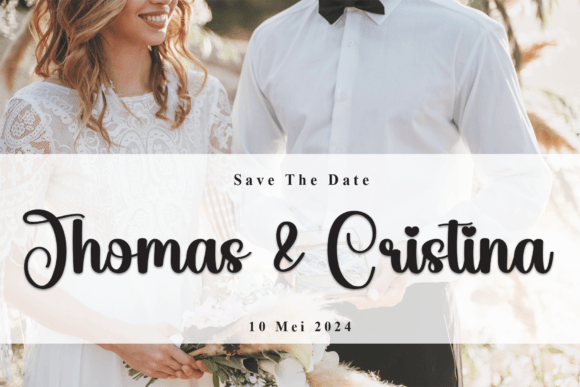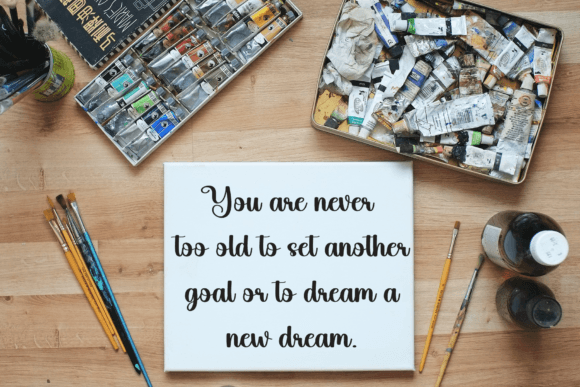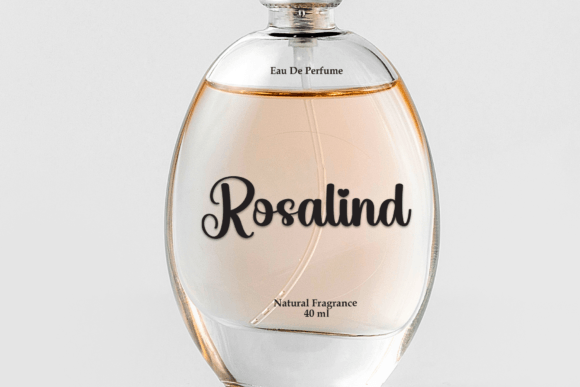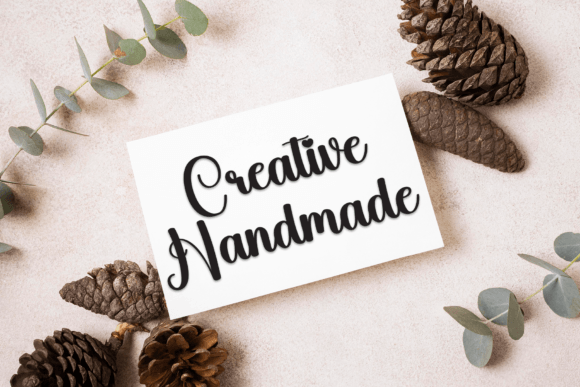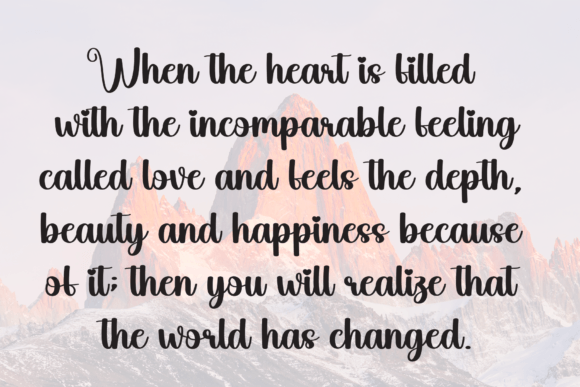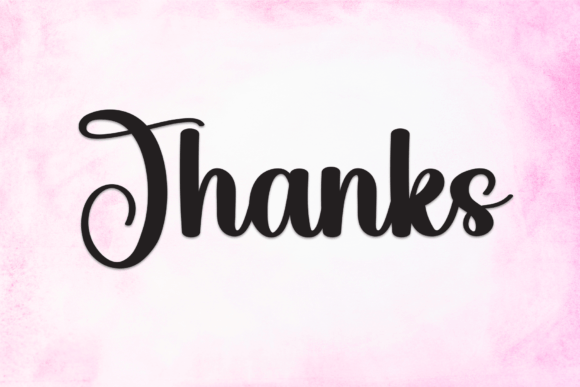
Adding a Touch of Whimsy with the Barbie Videos Font
Have you ever found yourself in a creative rut, staring blankly at a blank page, desperate for inspiration? I know I have! Sometimes all it takes is a little something special to spark our imagination and get those creative juices flowing. For me, it’s often a font that catches my eye – one that’s playful, charming, and just a little bit quirky.
Enter the delightful Barbie Videos Font, a sweet and friendly handwritten font that’s perfect for adding a fun touch to your designs. With its cute and bubbly style, this font is ideal for writing wedding invitations, cards, or any other design that needs a little extra love. Whether you’re a seasoned designer or a DIY enthusiast, the Barbie Videos Font is a valuable addition to your toolkit.
- Font Family: Barbie Videos Font is a unique, handwritten font designed specifically for videos and animations. It comes with a set of 100 glyphs, making it perfect for creating engaging titles, subtitles, and captions.
- Resolution: Designed for high-resolution displays, Barbie Videos Font looks great on 4K and 8K screens, ensuring your videos look sharp and professional.
- Unique Characteristics: The font features a playful, cursive style with a mix of uppercase and lowercase letters, making it perfect for adding a touch of personality to your videos.
Designer Review: Barbie Videos Font
Overall, I’d say the Barbie Videos Font is a fun, playful font that’s perfect for any project that needs a touch of whimsy. ✨ It’s great for creating engaging content for kids, especially for animated videos or TV shows. The font’s design is visually appealing, with a mix of rounded edges and smooth lines that make it easy on the eyes.
Here are some pros of the font:
- Great for kids’ content, including animated videos and TV shows ✨
- Visually appealing design with rounded edges and smooth lines ✨
- Easy to read, even at smaller font sizes ✨
However, I do have some concerns about the font’s limitations:
- May not be suitable for more serious or formal projects ⚠️
- Lacks versatility, as it’s primarily designed for kids’ content ⚠️
- May not be suitable for body text, as it’s more suited for headlines and titles ⚠️
Overall, I think the Barbie Videos Font is a great choice for the right project. Just be sure to consider the context and intended audience before using it. With its playful design and ease of use, it’s a great addition to any designer’s toolkit.
The Barbie Videos Font is commonly used in:
- Children’s educational content
- Toy packaging design
- Women’s fashion and beauty branding
It is also used in various digital media, such as social media graphics, video titles